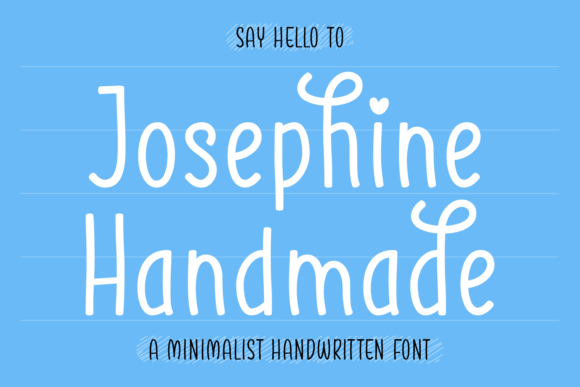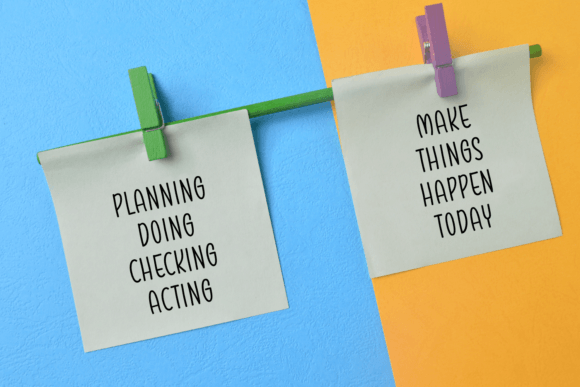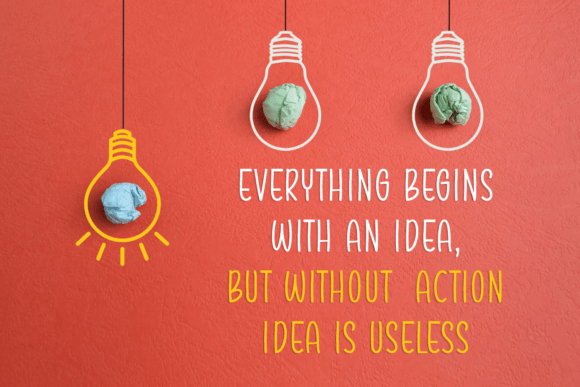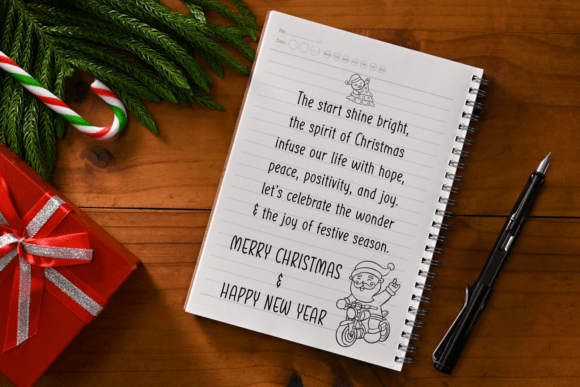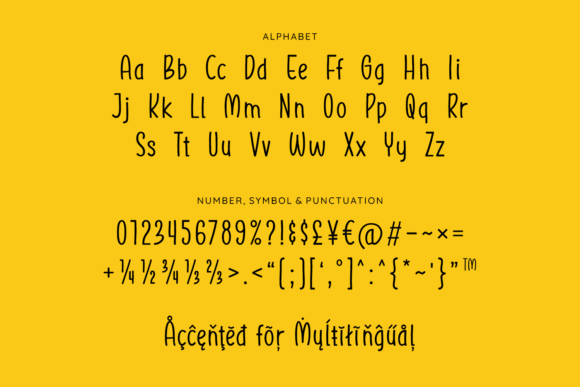
Josephine Handmade Font
About Josephine Handmade Font
Josephine Handmade is a simple and charming handwritten font designed to bring a clean and neat look to all kinds of projects. Its easy-to-read characters and versatile style make it an excellent choice for a wide variety of design needs. Whether you are creating content for websites, posters, book covers, business cards, product labels, or digital notebooks, this font adapts beautifully and enhances your creative ideas.
Clean and Neat Handwritten Style
The font features well-crafted characters that maintain clarity and elegance. Josephine Handmade is ideal for designers who want to add a personal, handcrafted feel to their work without sacrificing professionalism or readability. Its simplicity allows it to blend seamlessly with many design themes, from minimalist to more decorative layouts.
Versatile Applications Across Projects
Josephine Handmade font is highly flexible. You can use it in digital and print projects alike. It fits perfectly for website headers, marketing materials, packaging labels, and personal stationery. The font’s balanced design makes it suitable for both casual and formal projects. Its adaptability means it works well for creative entrepreneurs, bloggers, and business owners who want to create a welcoming and authentic brand presence.
PUA Encoded for Enhanced Creativity
One of the valuable features of Josephine Handmade is its PUA encoding. This encoding gives you easy access to all the font’s glyphs, swashes, and stylistic alternates. You don’t need advanced software skills to unlock these features, making it user-friendly for beginners and professionals alike. This feature enables you to add unique flourishes and embellishments, helping your designs stand out.
Why Choose Josephine Handmade Font?
Josephine Handmade offers the perfect blend of charm and simplicity. It gives your projects a handcrafted and warm look while keeping them clean and professional. Whether you are designing a business card or a digital notebook, this font will elevate your work with its neat style and versatility. Its ease of use and attractive design make it a must-have addition to your font library.
Elevate Your Designs with Josephine Handmade
Incorporate Josephine Handmade into your creative toolkit to add elegance and approachability to your projects. Its clean lines and simple charm create a timeless appeal suitable for various applications. This font helps turn your creative visions into beautiful, readable designs that engage and inspire your audience. Try Josephine Handmade today and experience its versatility and grace in action.